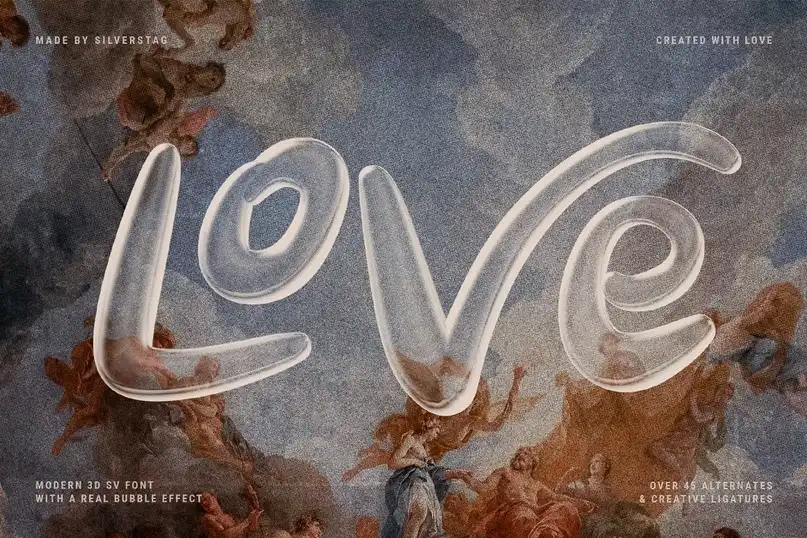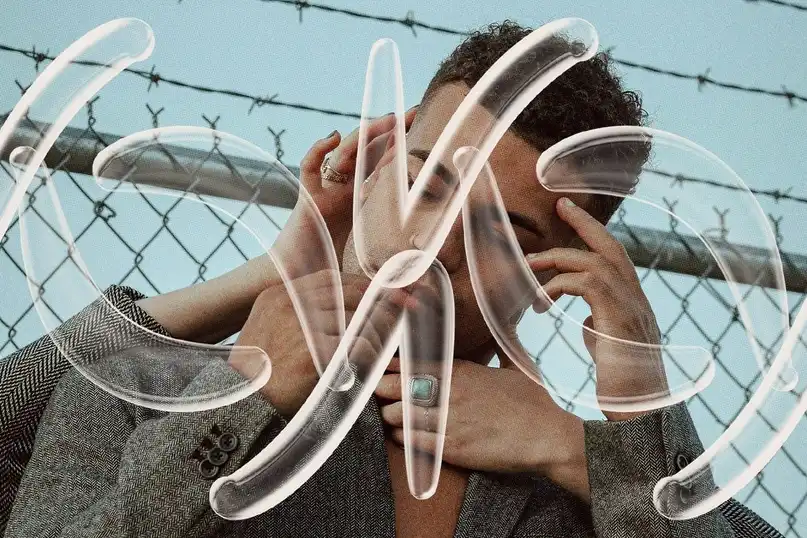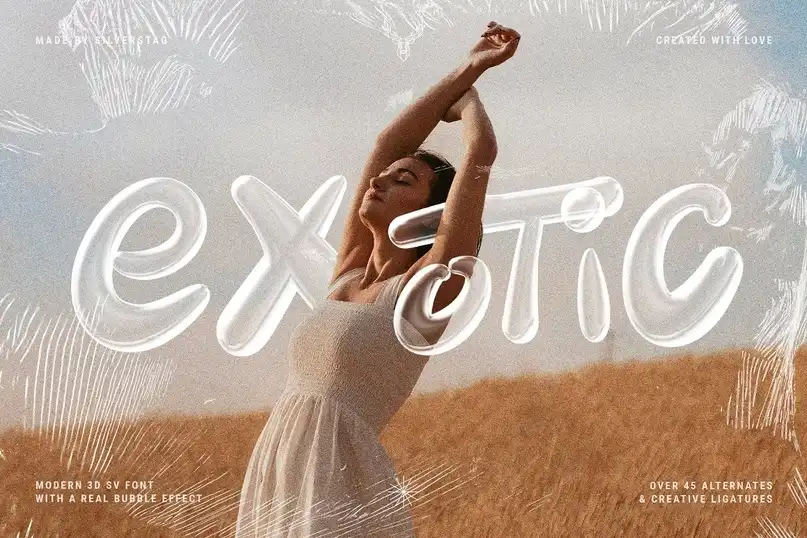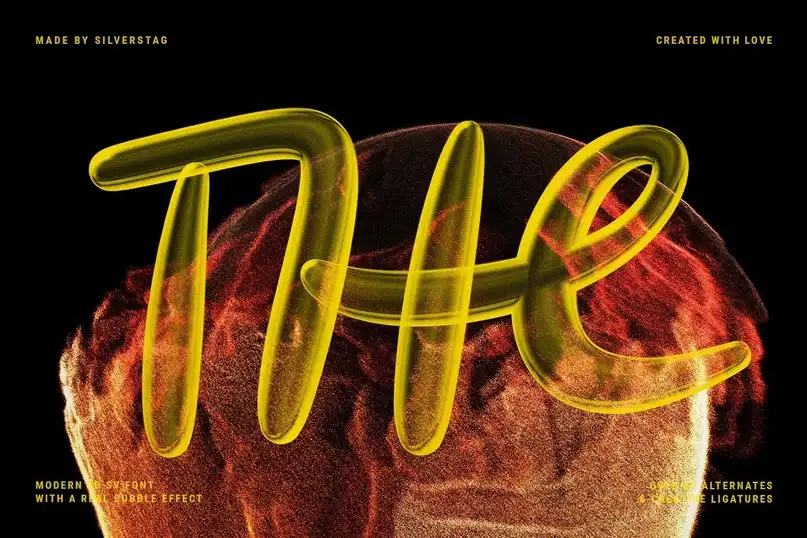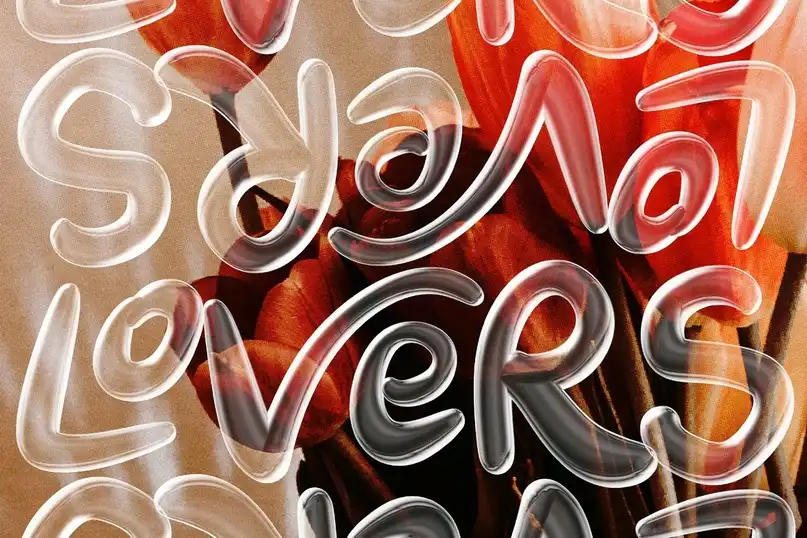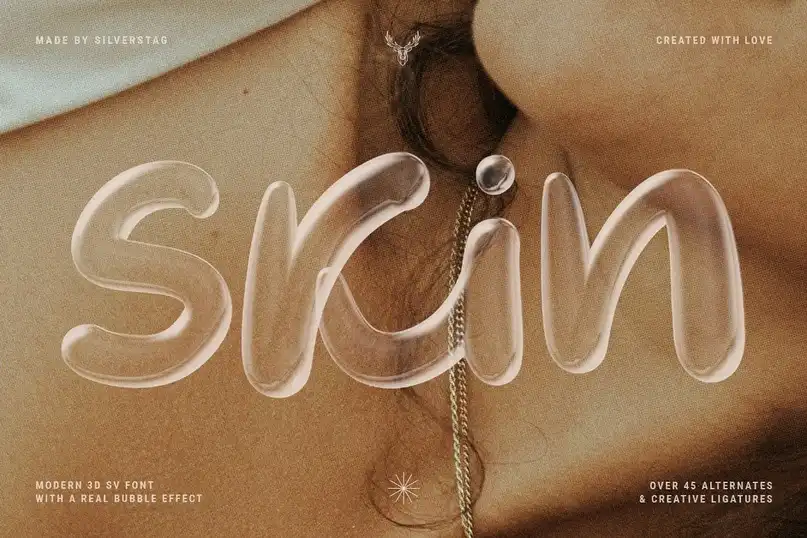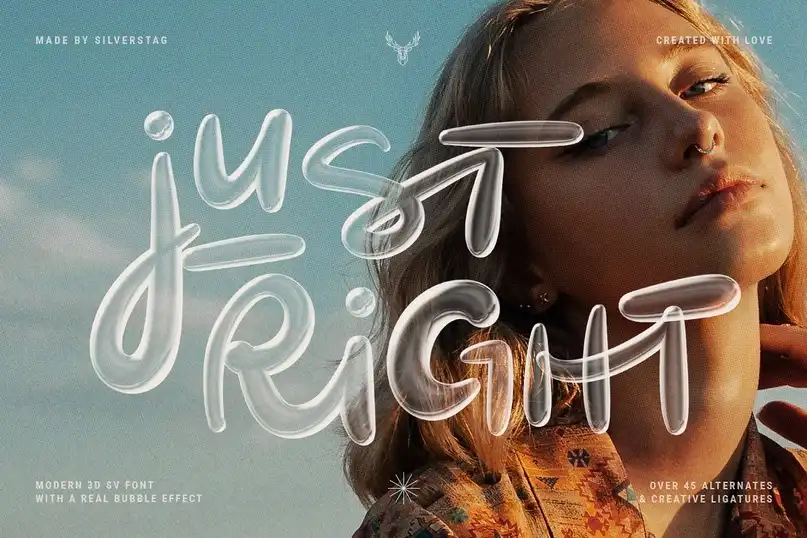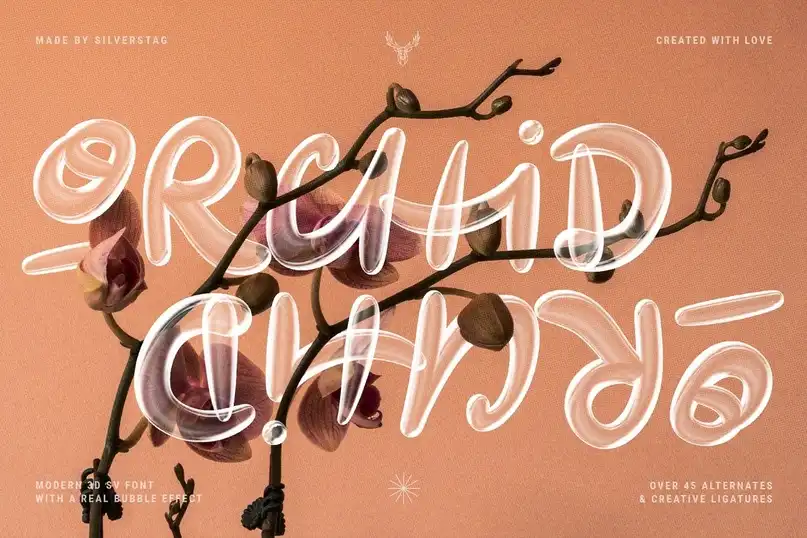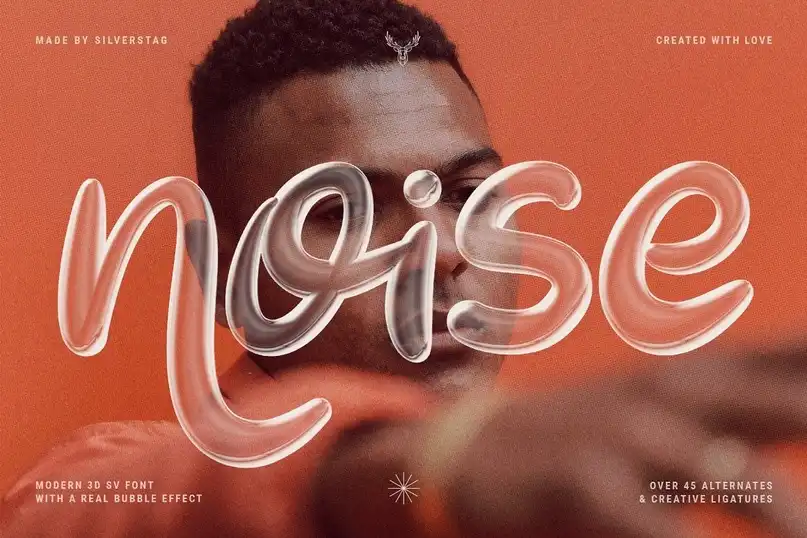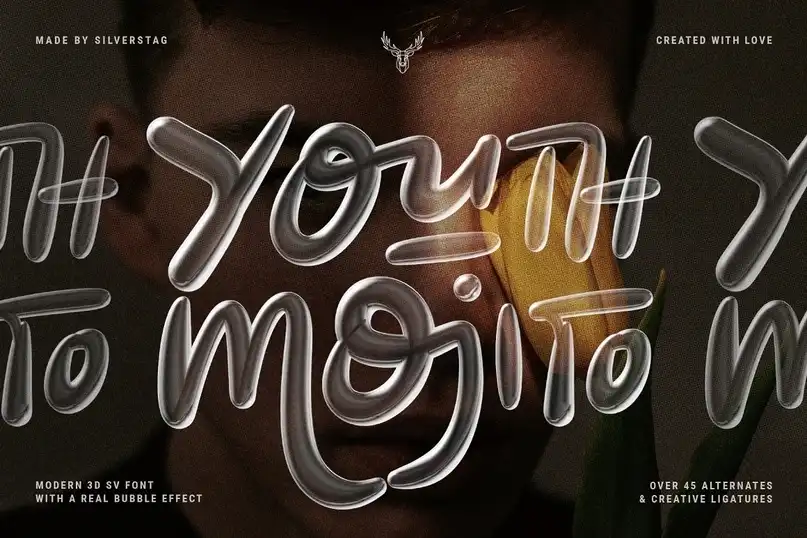
Welcome to the World of YOUTH MOJITO! 🌟
Looking for a playful and bubbly font to add a splash of creativity to your projects? YOUTH MOJITO – A 3D Bubbly SVG Font is a delightful digital download that you can access instantly! Perfect for modern posters, graphics, presentations, and logos, this font will surely bring your designs to life! 🎨✨
YOUTH MOJITO is a unique SVG font that embodies a fun and vibrant aesthetic, ideal for any creative endeavor. Whether you’re crafting a chic logo or designing an eye-catching social media post, this font is here to make your work stand out. Its bubbly appearance and charming character will captivate your audience and elevate your creative projects. 🥳
- Unique Bubbly Design: Adds a playful touch to your typography, making your projects visually appealing.
- Versatile Usage: Perfect for posters, branding, and digital graphics, ensuring your designs are always on-trend.
This font is a fantastic choice for graphic designers, branding specialists, and anyone looking to add a chic, modern touch to their work. Whether you’re involved in fashion, advertising, or simply love creating unique designs, YOUTH MOJITO is the ideal companion. 💖
YOUTH MOJITO – A 3D Bubbly SVG Font